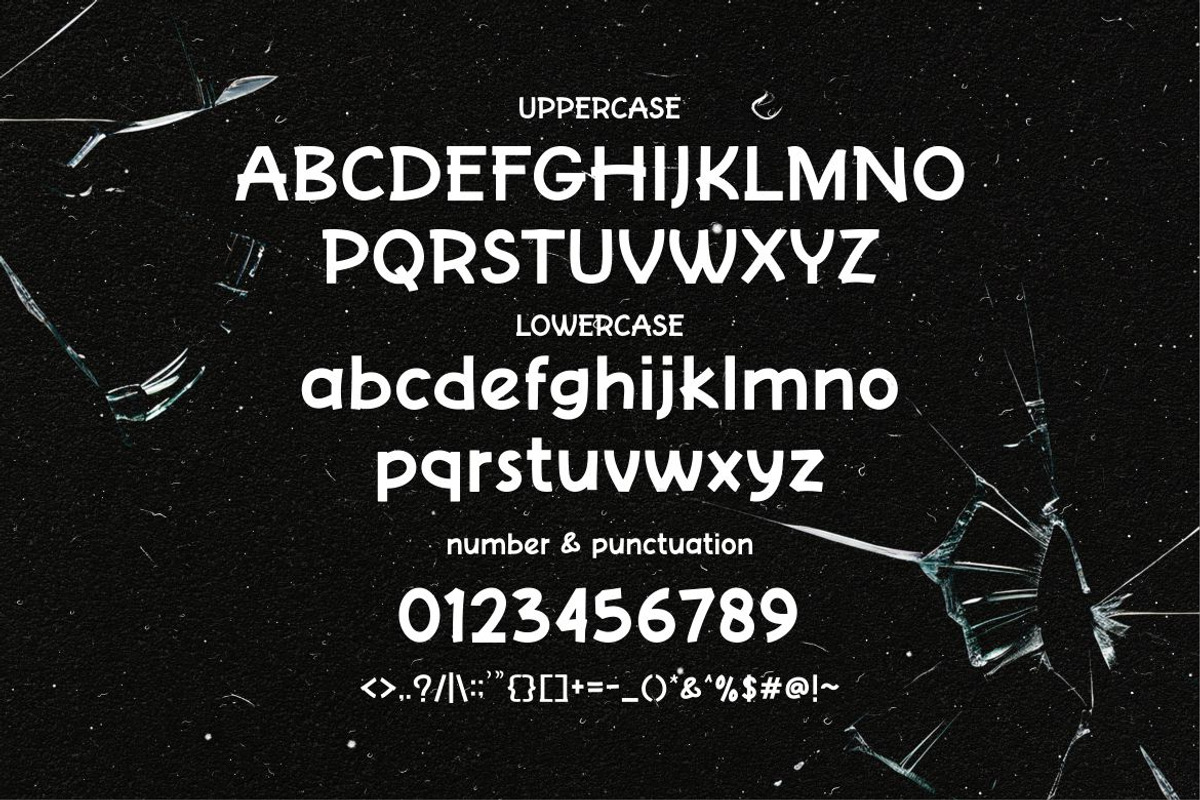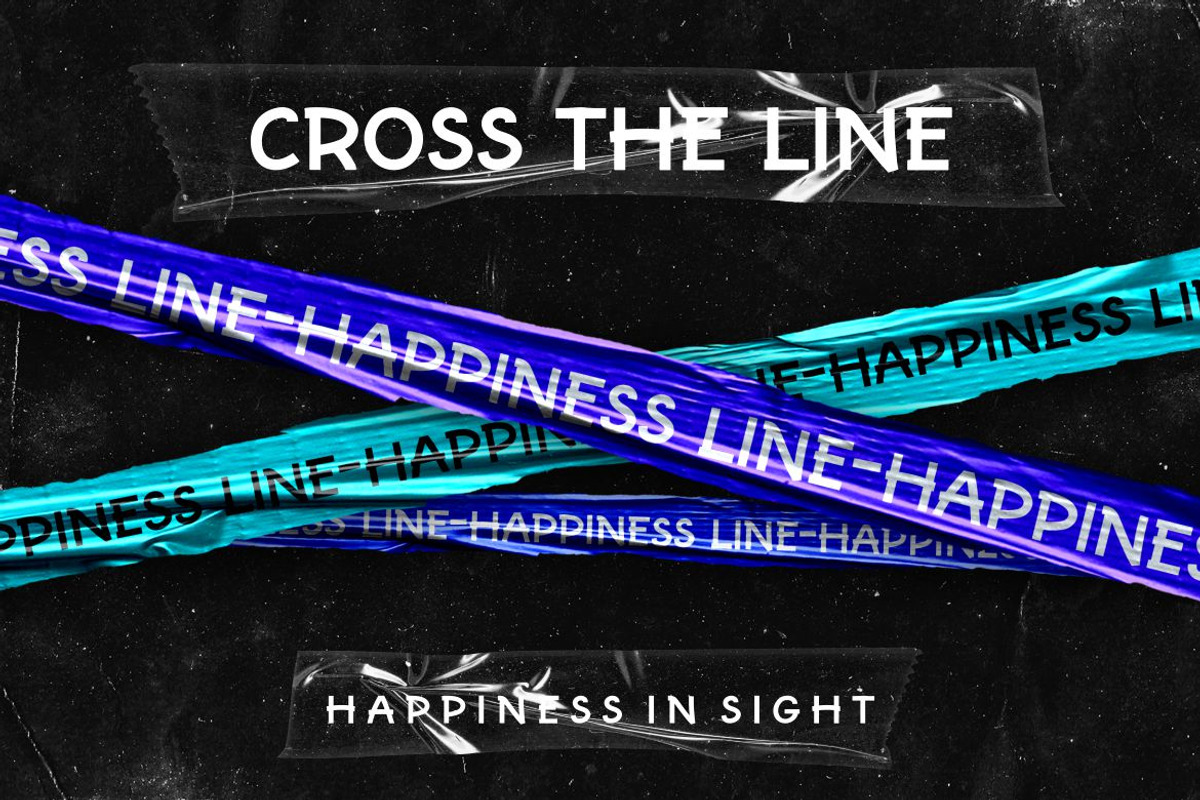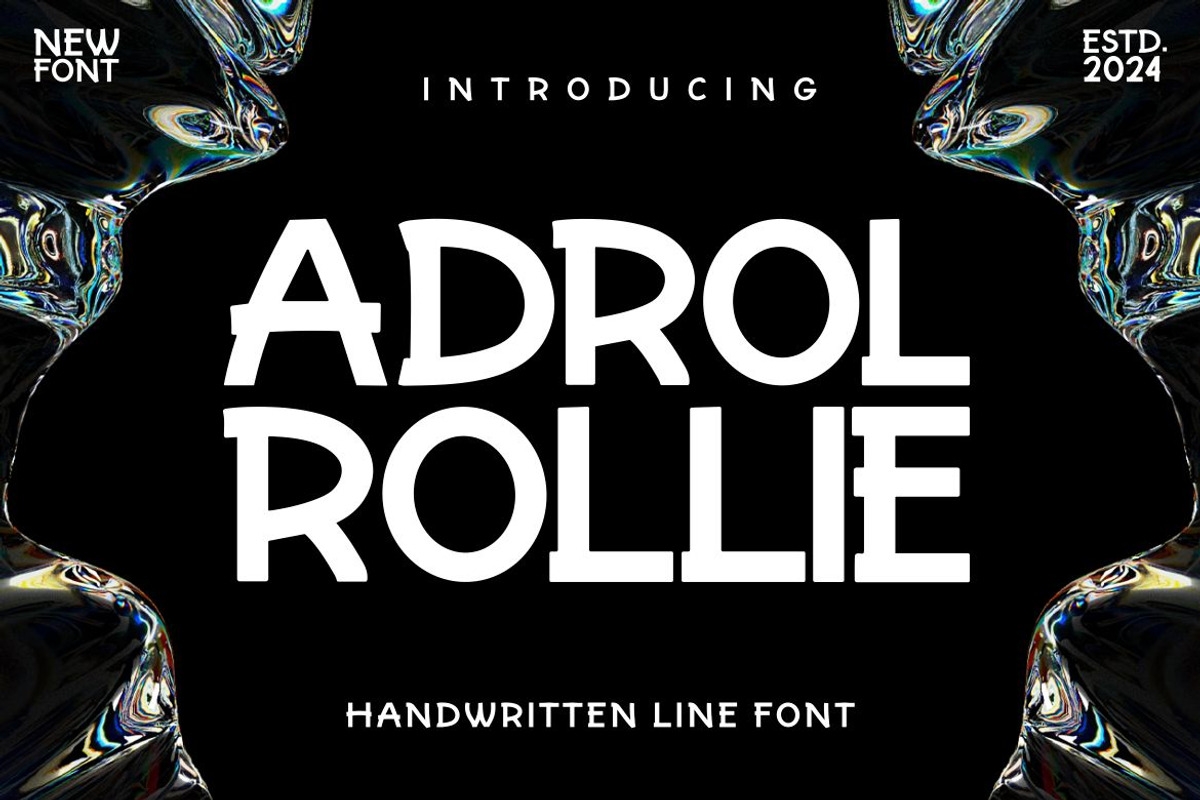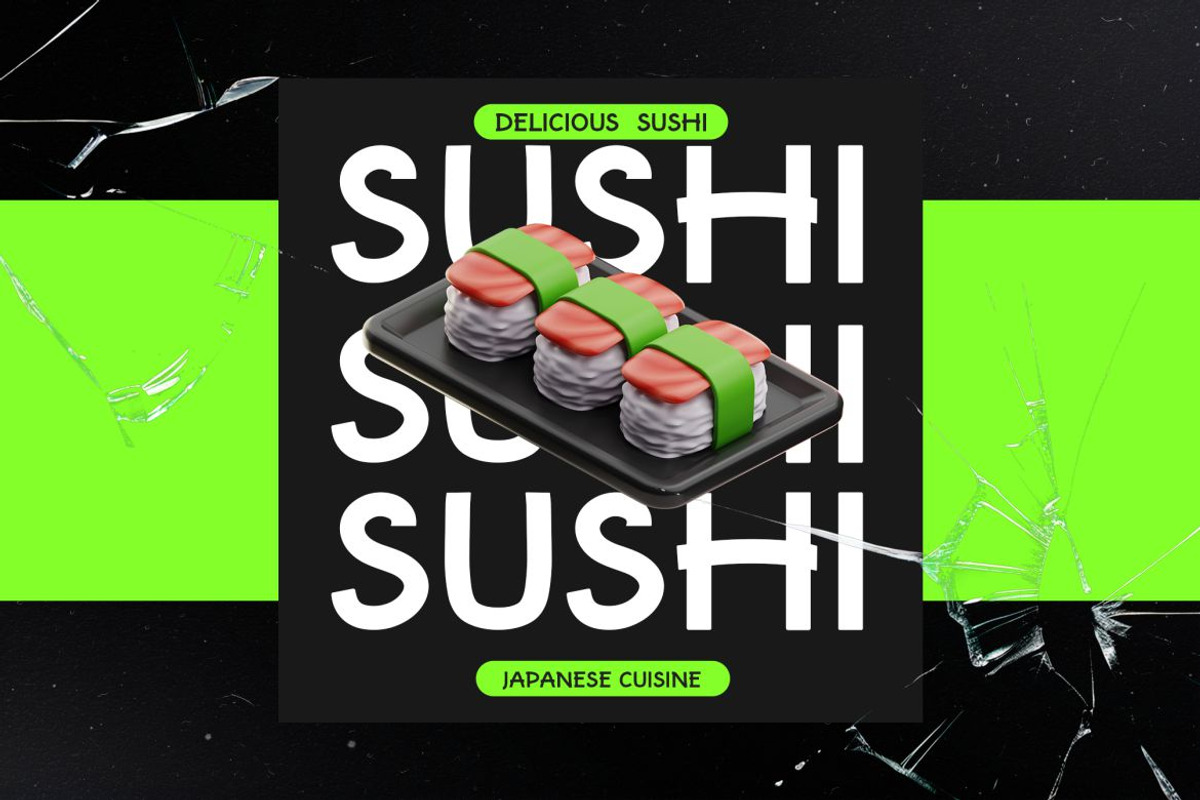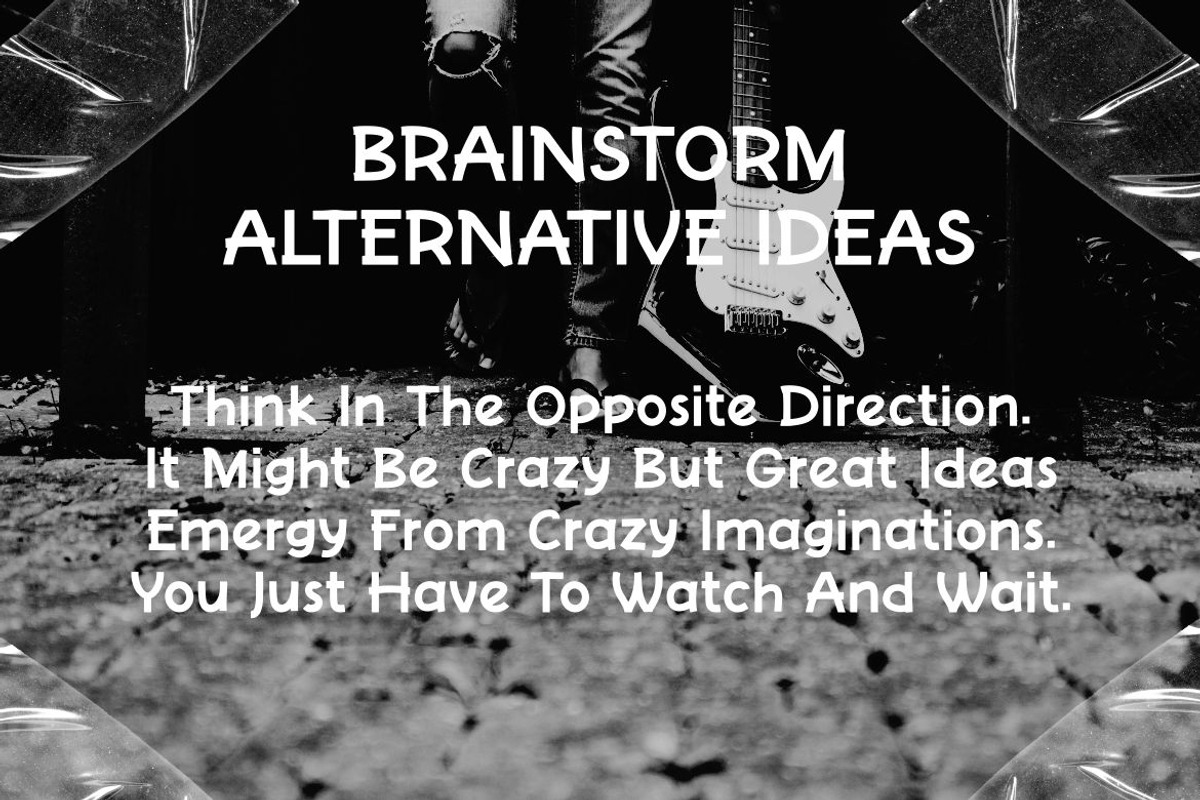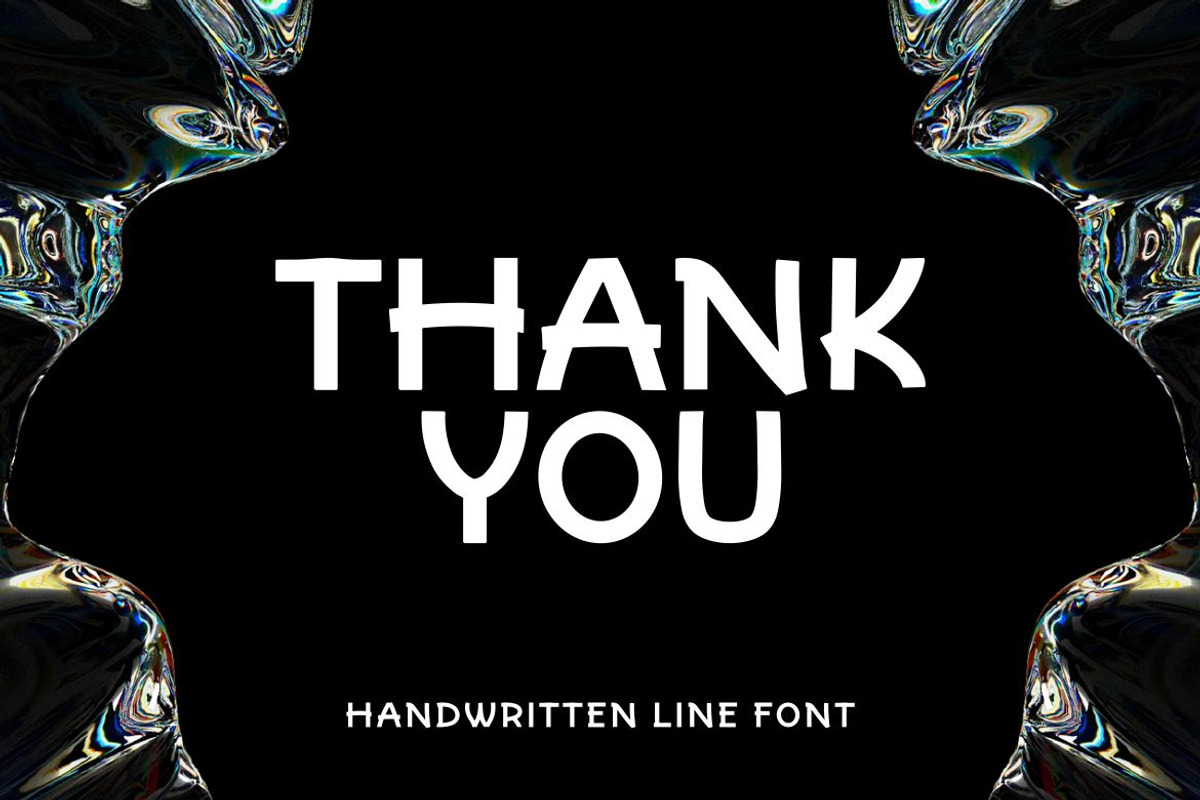
Adrol Rollie - Handwritten Line Font
Introducing Adrol Rollie , a cool and elegant Handwritten Line Font. Elegant font feel. This font gives you a beautiful and modern atmosphere. suitable for posters, book covers, cards, merchandise, etc.